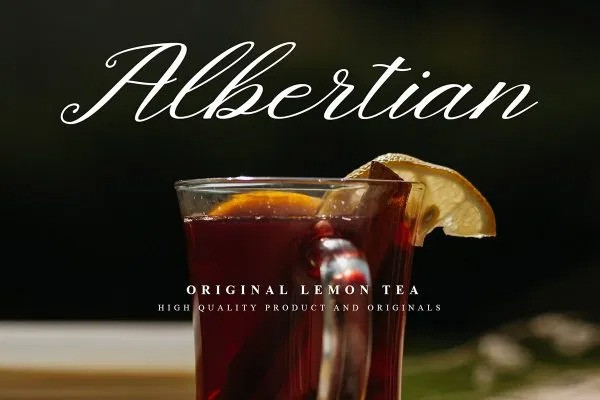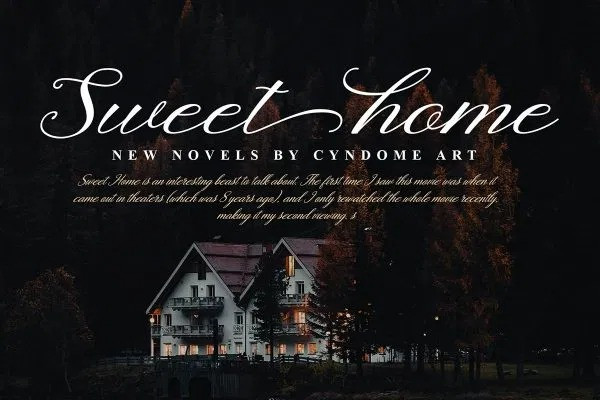
Mottas Calligraphy Font
Mottas Script a new fresh & modern script with a handmade calligraphy style, decorative characters and a dancing baseline! So beautiful on invitation like greeting cards, branding materials, business cards, quotes, posters, and more!!